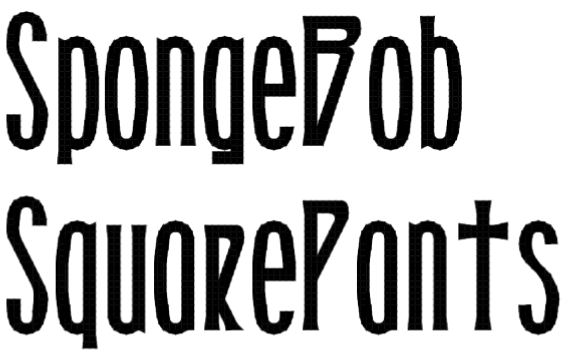
The Description had info about the font...
Restyled clone of Mothership (with no alternates so that this particular style edit is more solid).
This variant makes a departure from the inspiration of the logo and simply tries to tie it all up neatly in a style that is more closely associated with the used on the 'Celebration Day' album. more specifically, Dirigible uses the P and p that is shaped more like the R, r, D and d. I extended the leg of the J, N and P (in the style of the M).
I narrowed the T, U, V and W, then added a long leg to the W and w.
I've added half a block to the underline so that on the lowercase letter underlines will overlap the L and Z and there is no gap.
So that we can still use the lowercase characters whether they follow an L or Z or not, I am getting rid of the end quasi-serifs there (which usually completed the end foot of the L or Z). This should make the font more usable.
I opened up the space between the top and middle cross leg of the B, b, E, e, F and f so that it is more legible at smaller sizes. That created certain alignment problems, so I nixed the second crossbar of the A, a, H, h and 4, then I aligned the remaining crossbar with the others.
I'm not sure where to put the end serif. I was thinking the non-breaking space, but that would destroy some functionality. But I want it easily accessible. I decided to make a period that would work and maybe do double duty as a period. Hope that works.
I took the extra alternates out of this one and added some accented letters in this same style, this time.
I started making a variety of letters that the system didn't copy letters to, as well (just playing with it).
SpongeBob SquarePants in this font, with my lowercase in it…
The underline of lc Z doesn't seem to connect to the (lowercase) letter to it's right…
Remember that this is primarily a display font and I don't think kerning was even possible (in Fontstruct) when I created it and published it.  But, I think it may be fixed?  I hope so.  ;)
I also tried to finish the English Pound symbol (sorta quickly).